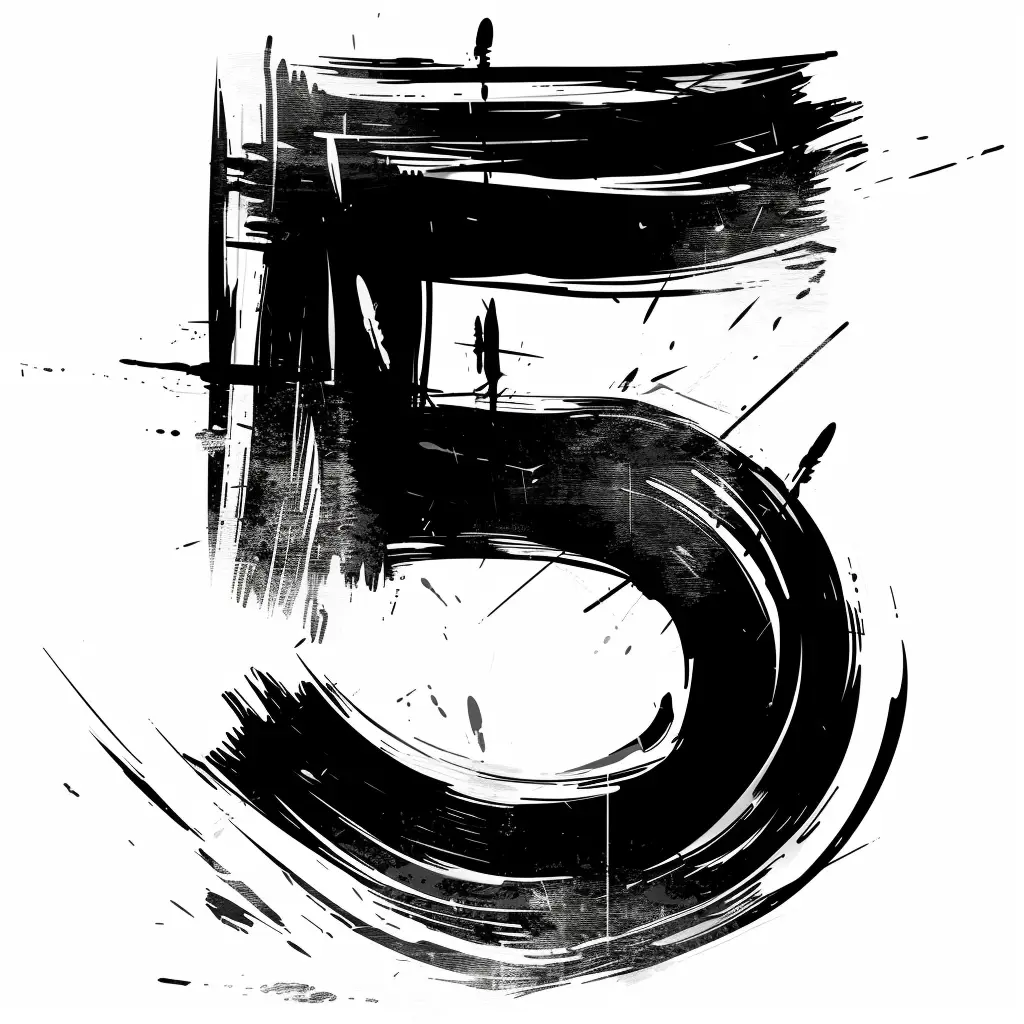
The image features a stylized, artistic representation of the number "5" rendered in bold black brushstrokes against a white background. The design employs a dynamic, abstract style with rough, textured lines, splatters, and varying stroke thicknesses, creating a sense of movement and energy. The high-contrast black-and-white color scheme emphasizes the dramatic, expressive quality of the composition.